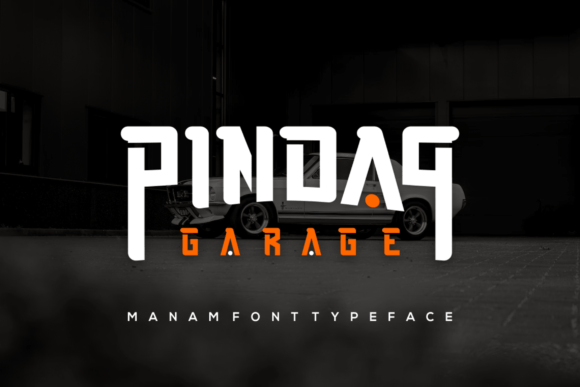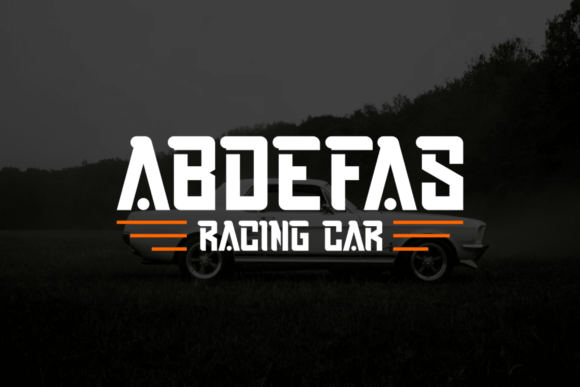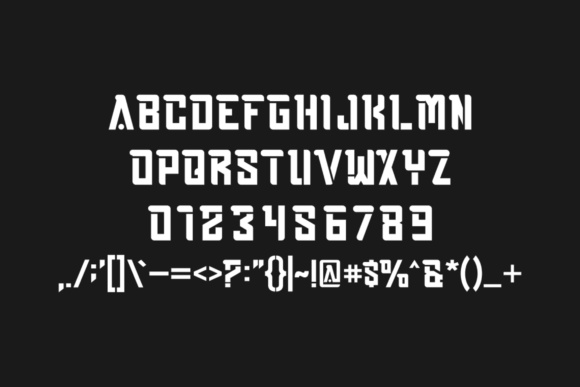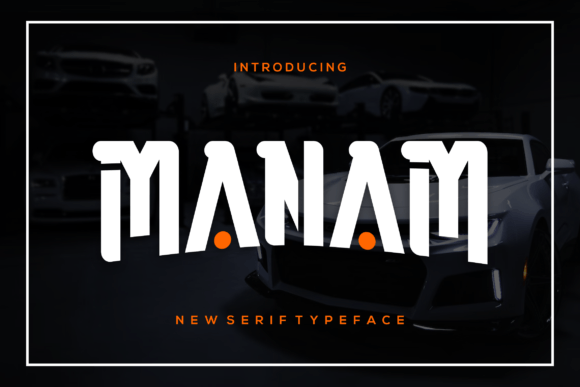
Introduction to Manam Font
Manam is a cool and modern display font.
Masterfully designed to become a true favorite, this font has the potential to bring each of your creative ideas to the highest level .